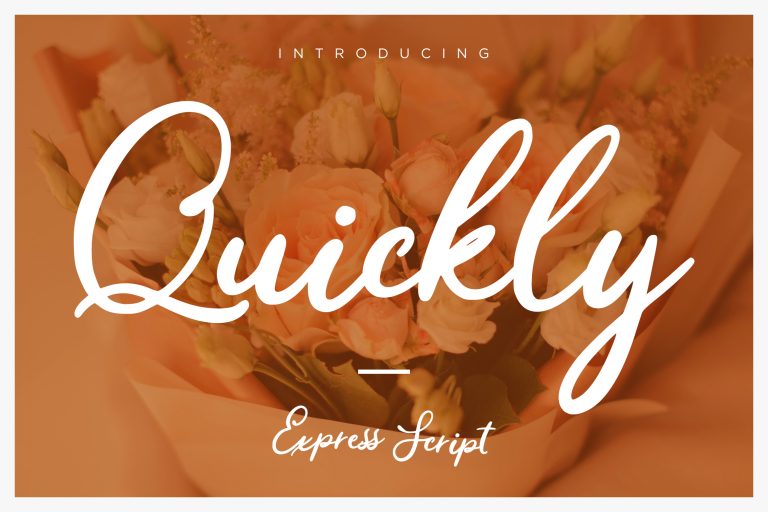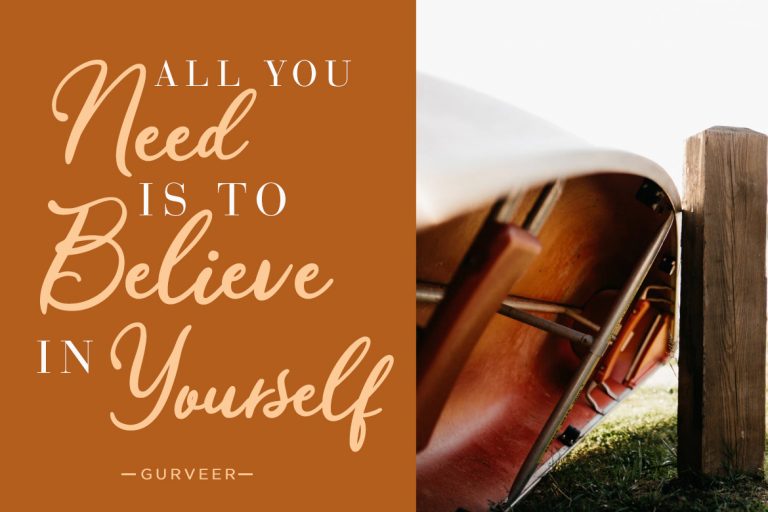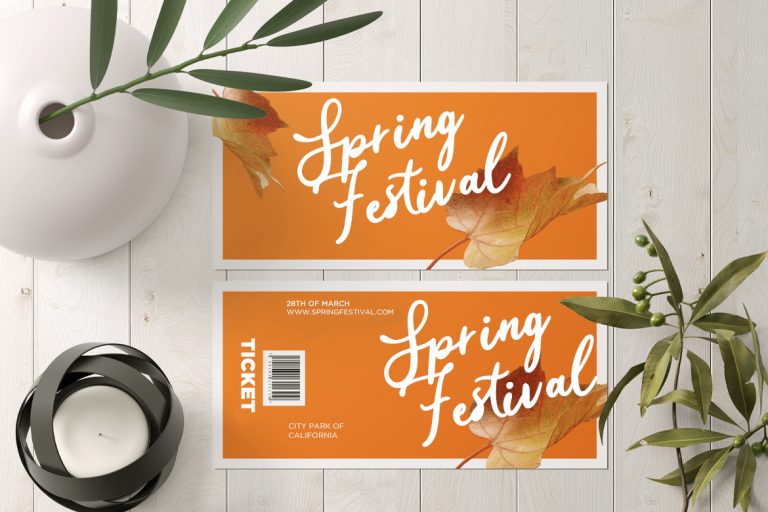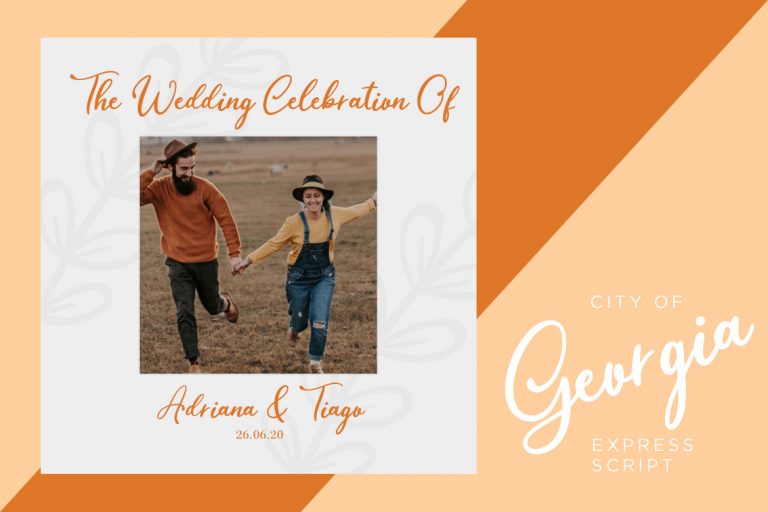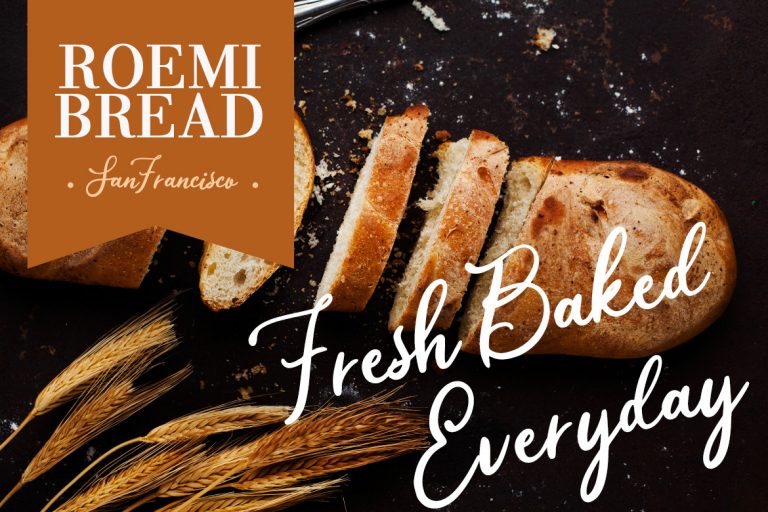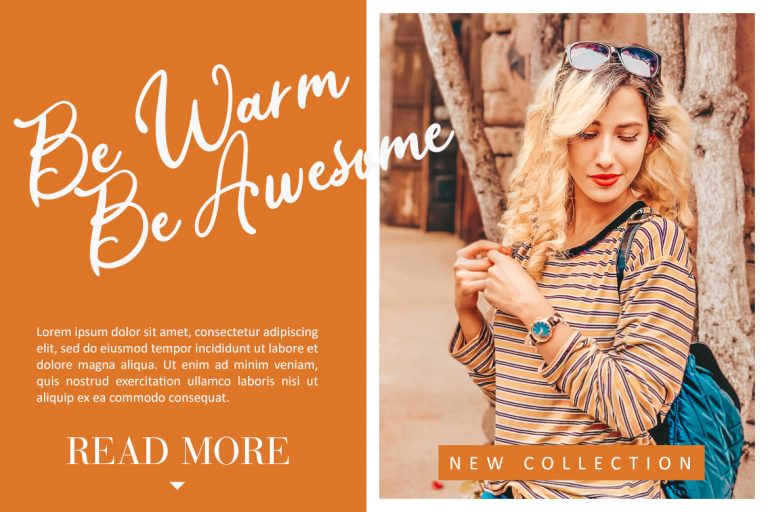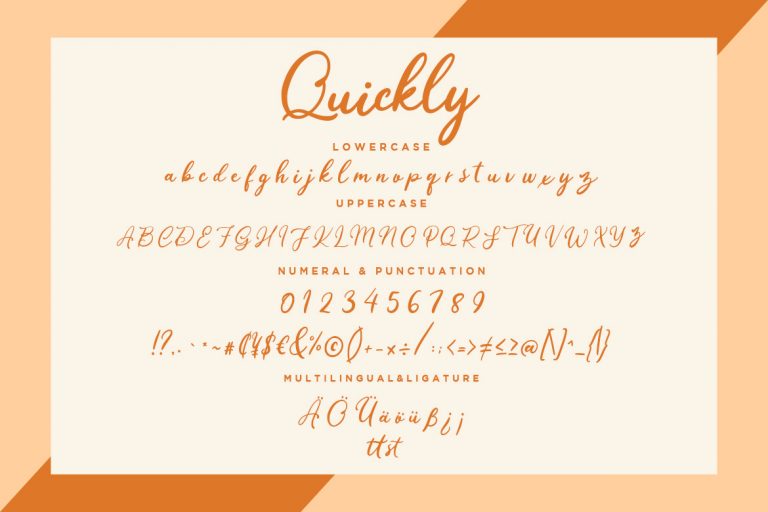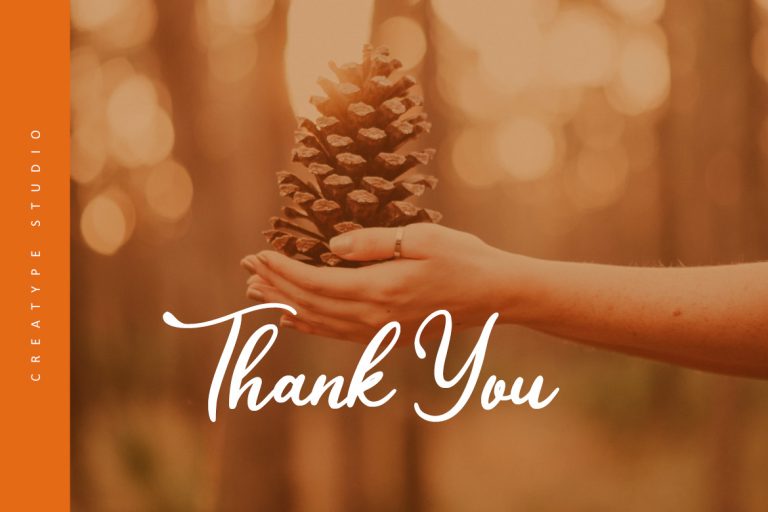
Quickly Express Script
Quickly is a handwritten signature font with elegant and classy touch for your awesome project.
Quickly is perfect for branding projects, logo, wedding designs, social media posts, advertisements, product packaging, product designs, label, photography, watermark, invitation, stationery and any projects that need handwriting taste.
- Fonts include multilingual support for; ä ö ü Ä Ö Ü ß ¿ ¡